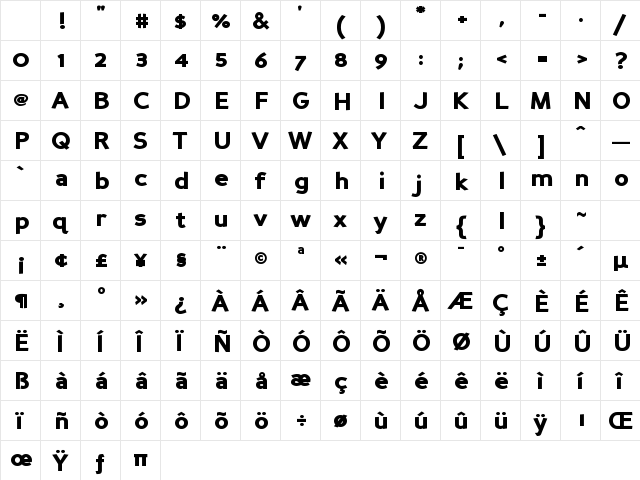
Perspective Sans Black Regular
Design Context for Perspective Sans Black
Perspective Sans Black is a composed and adaptable typeface that performs quietly and consistently across a wide range of design contexts.